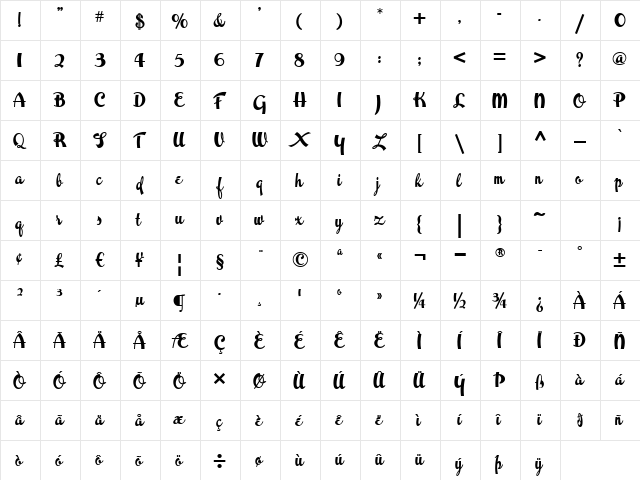
Thai Foon HB Regular
Design Context for Thai Foon HB Typeface
Thai Foon HB is a composed and adaptable typeface that performs quietly and consistently across a wide range of design contexts.